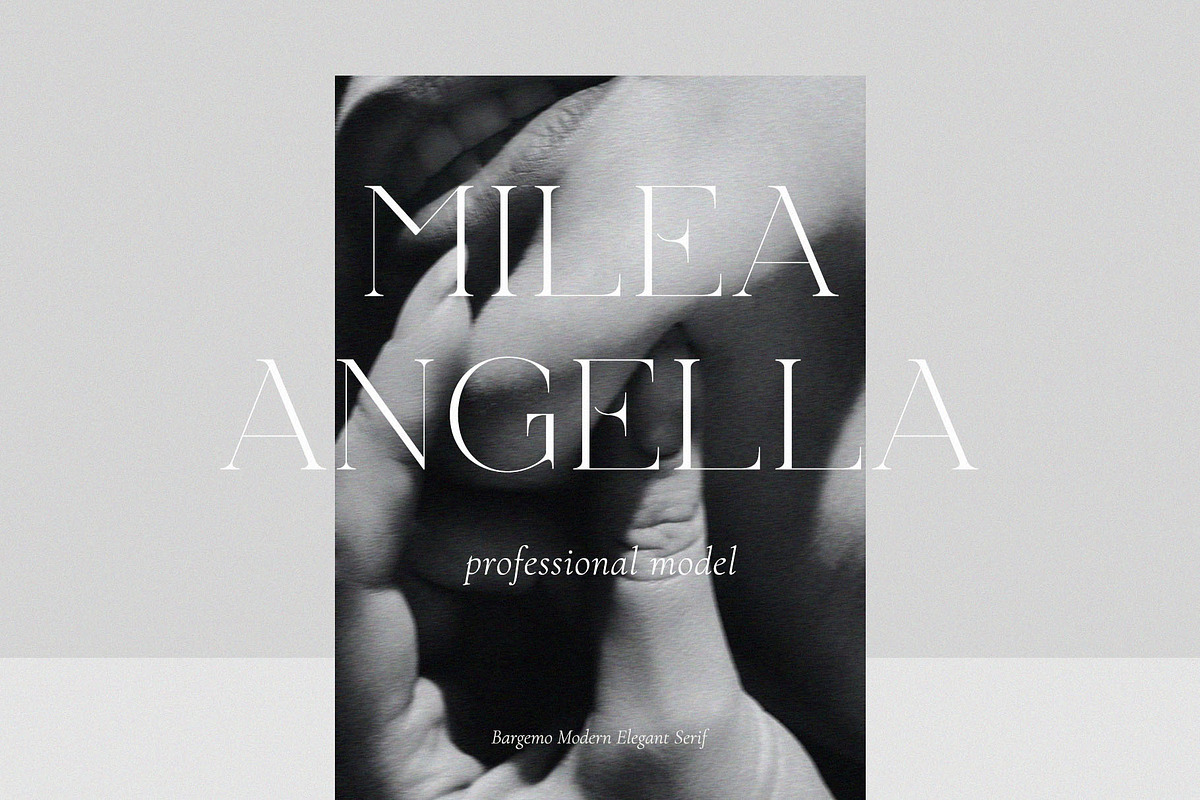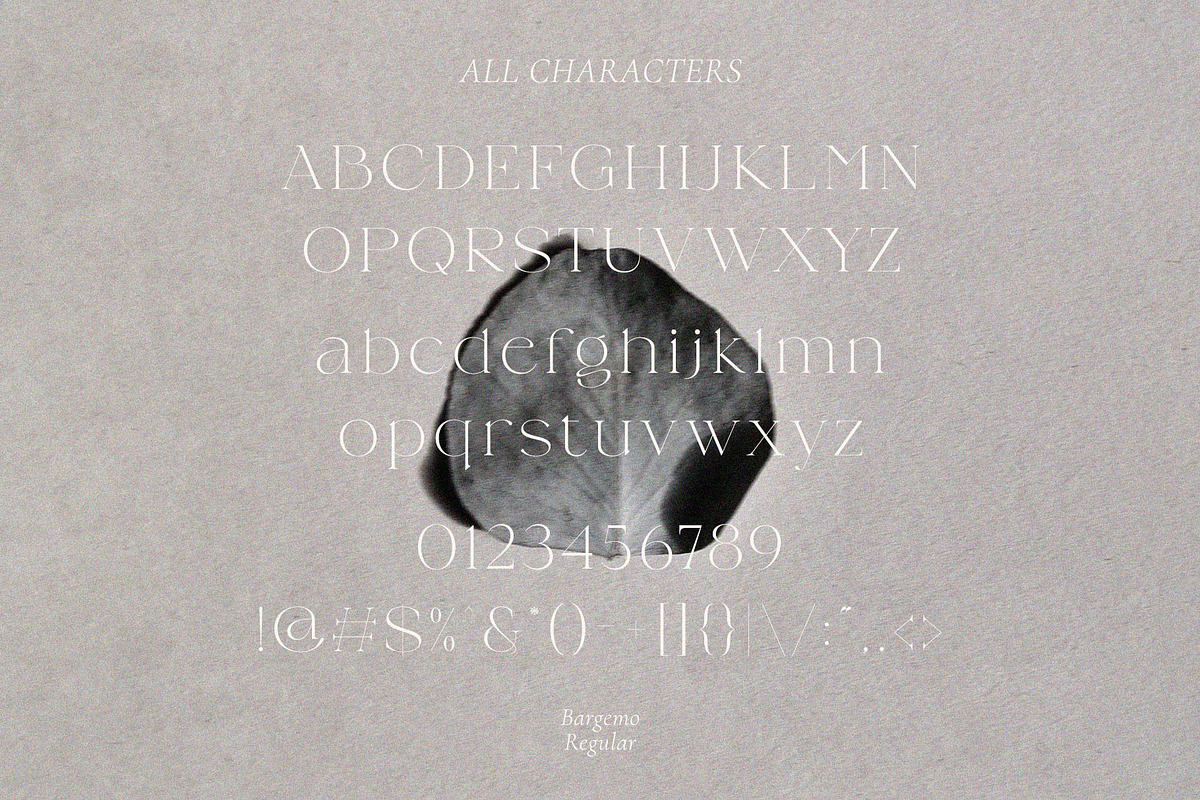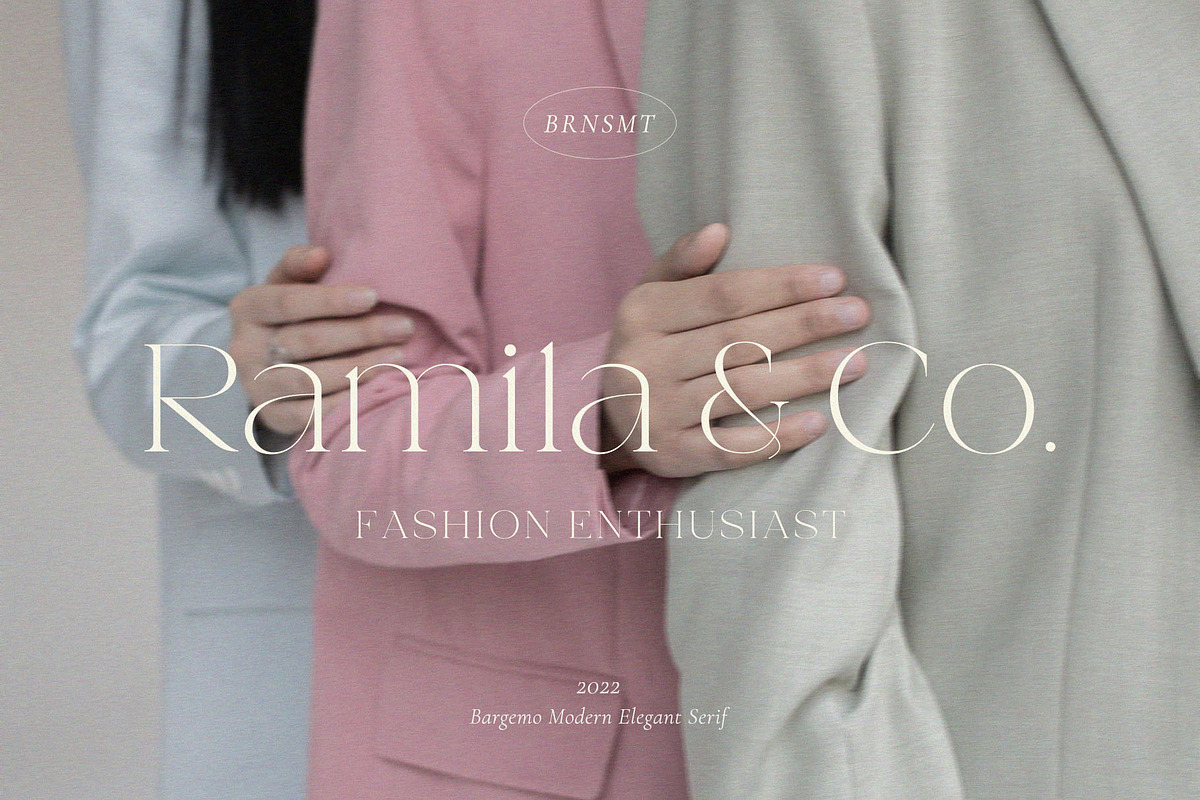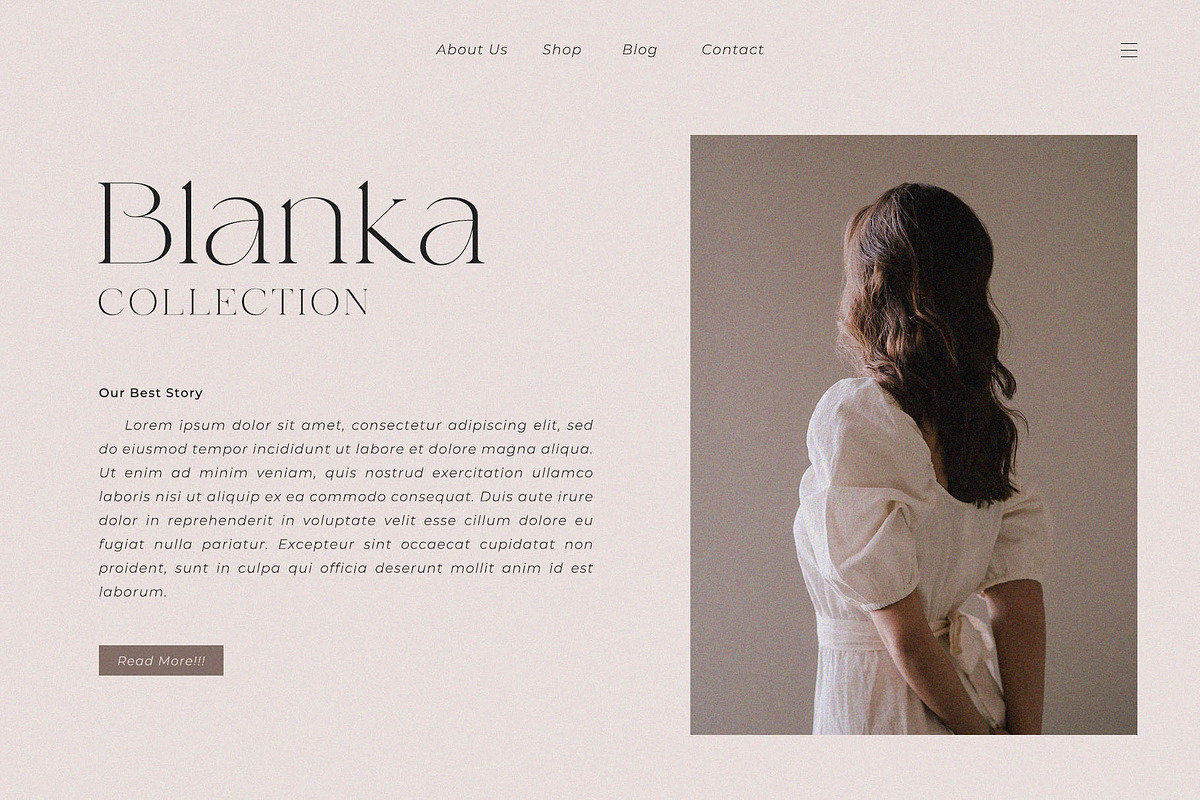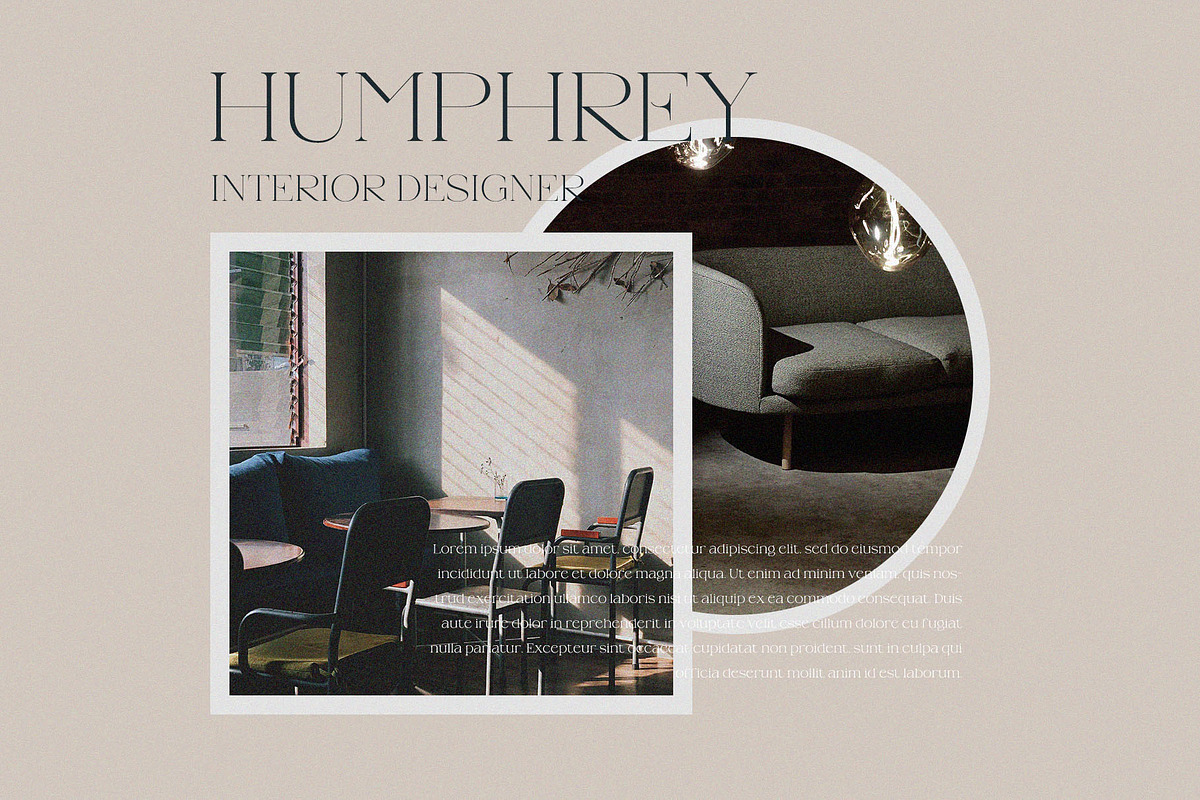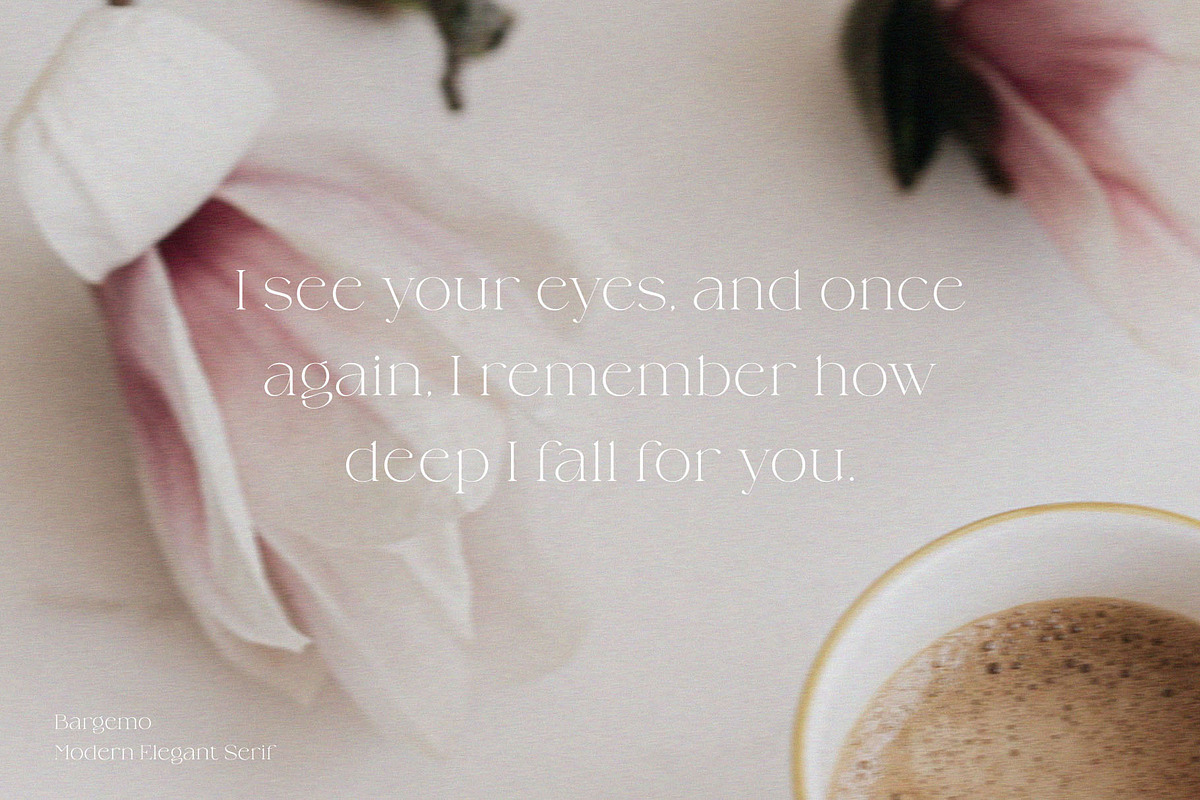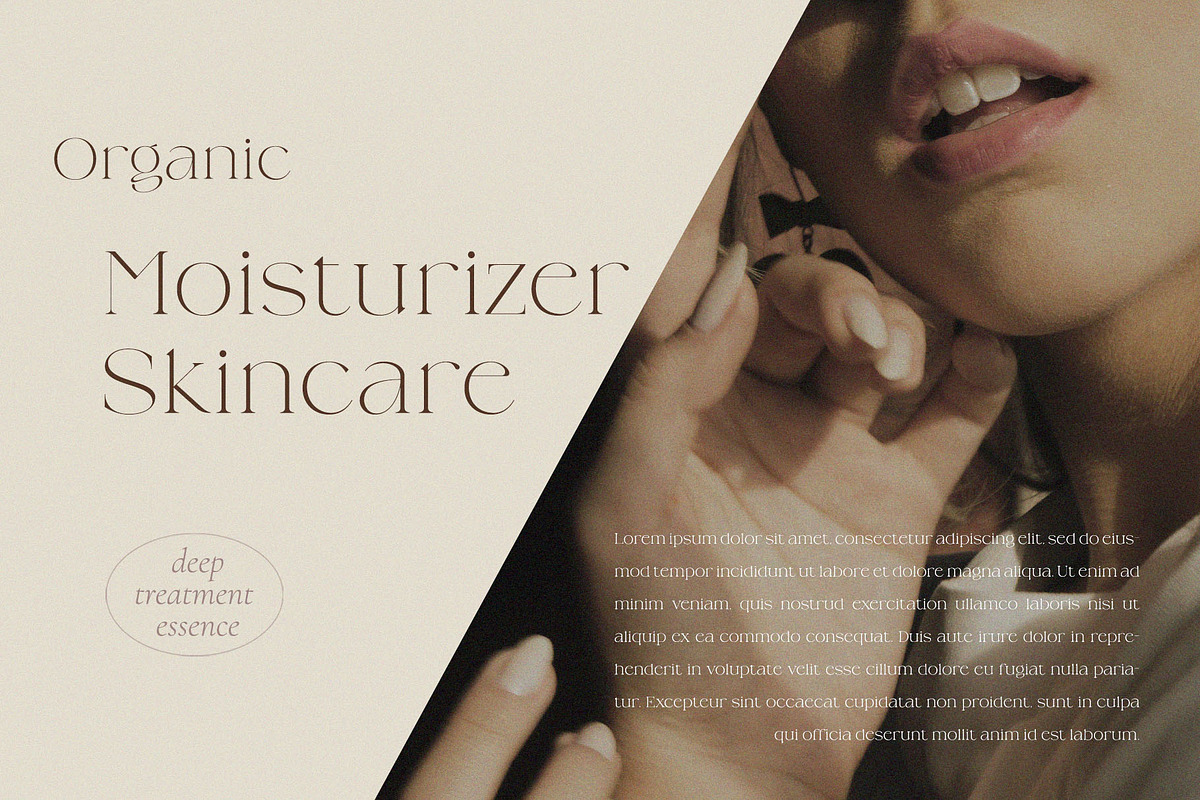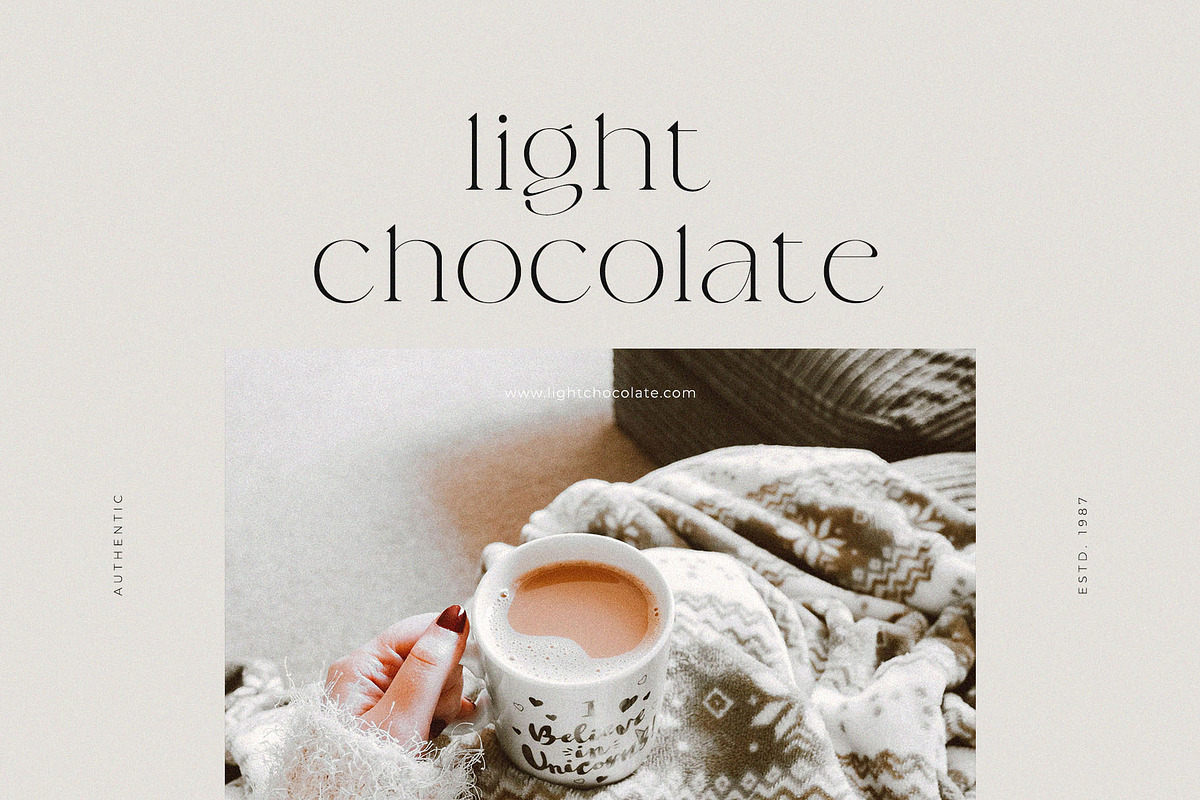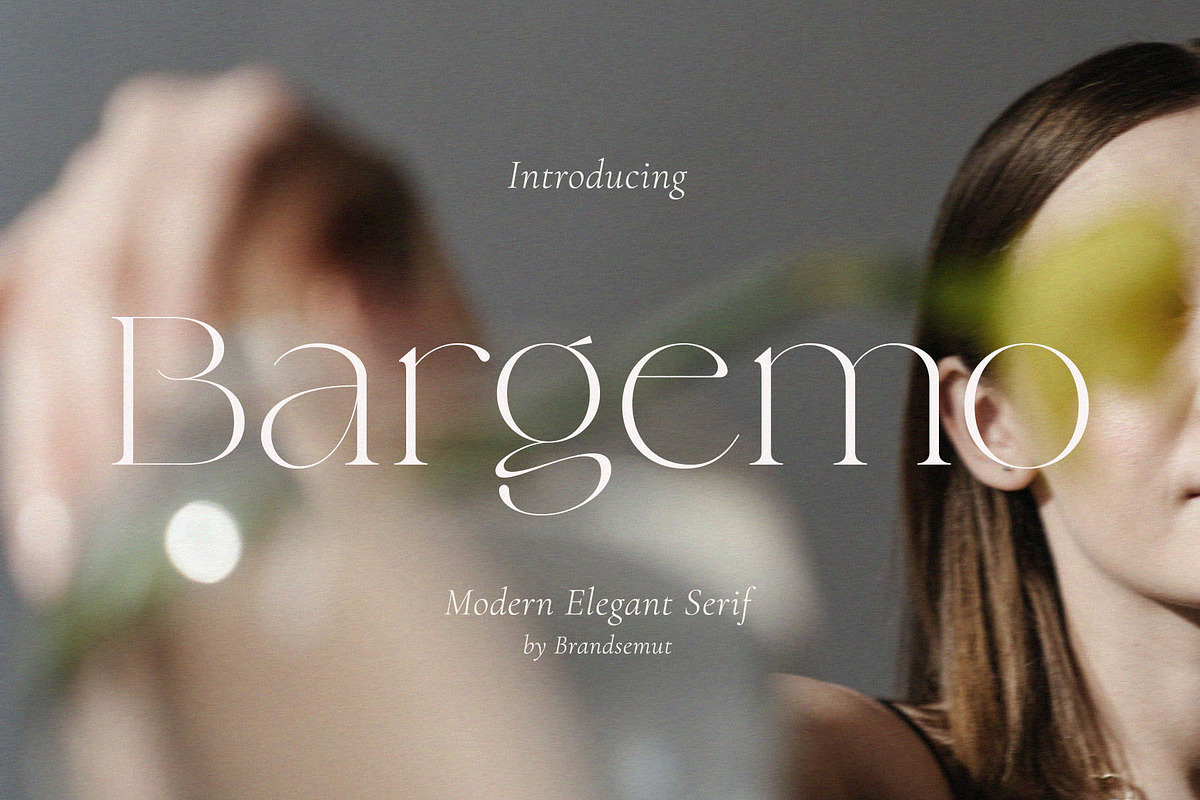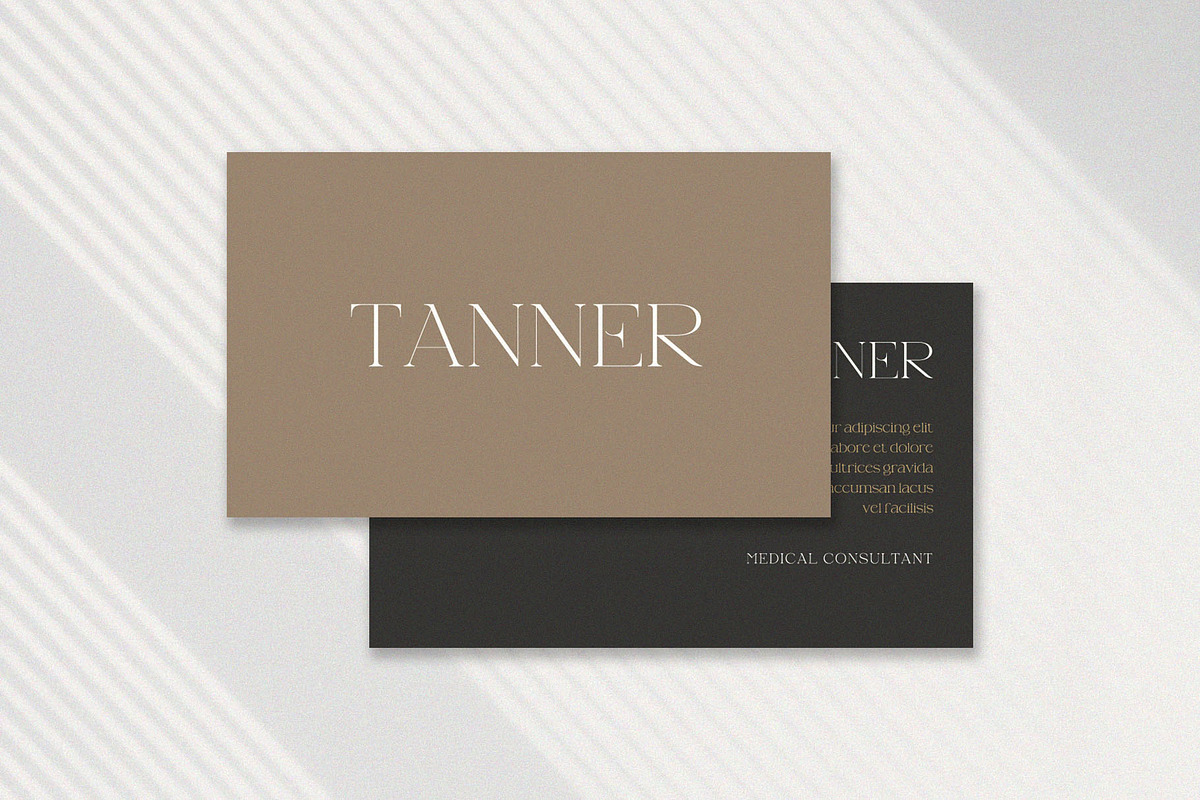
Bargemo – Modern Elegant Serif
Introducing Bargemo Modern Elegant Serif. Bargemo is a modern and elegant typeface, best used as a display for headings, logos, branding, magazines, product packaging and invitations. Bargemo come with clean lines and smooth curves give any project an extra touch of class.